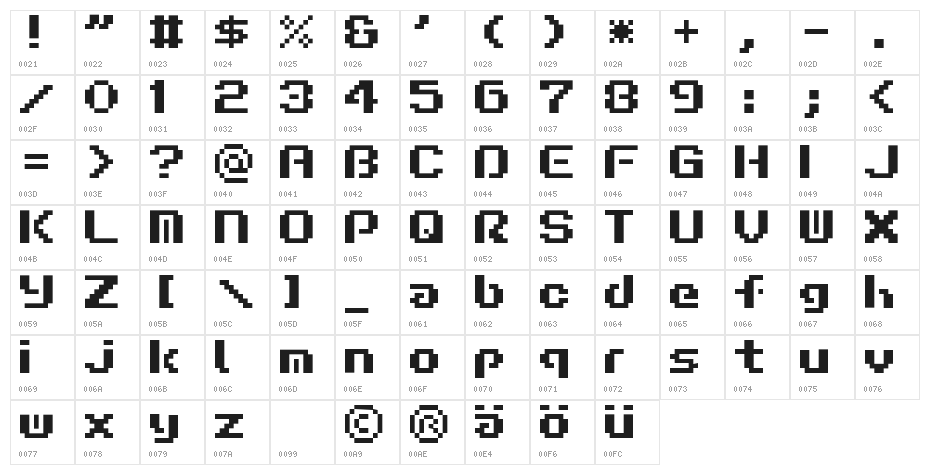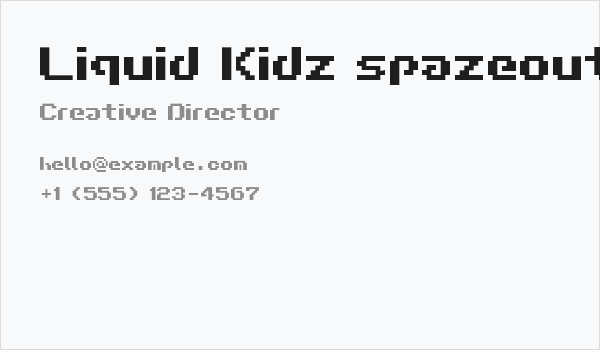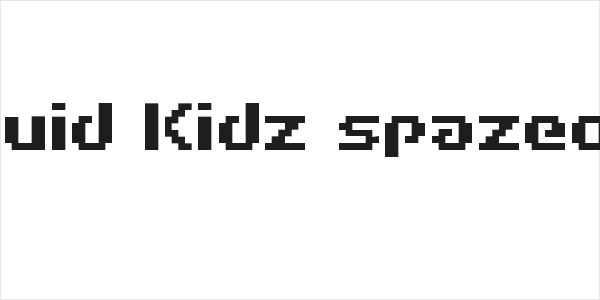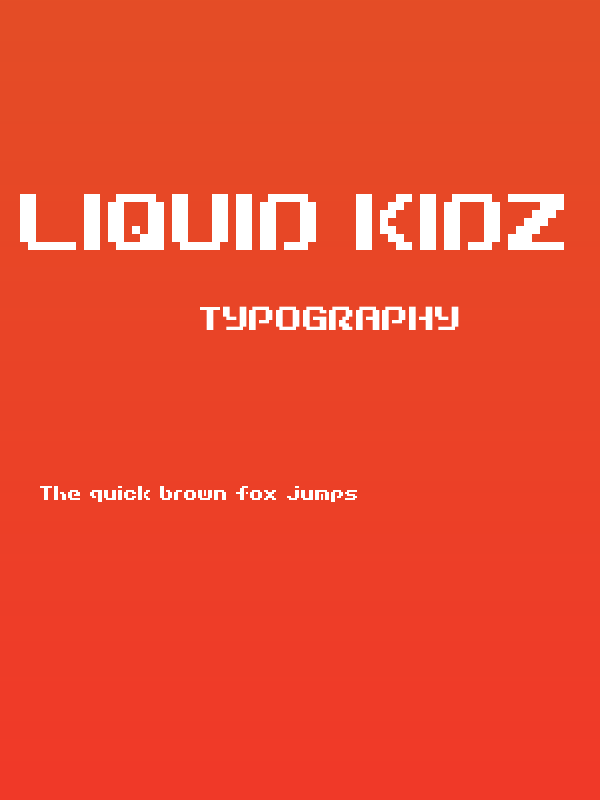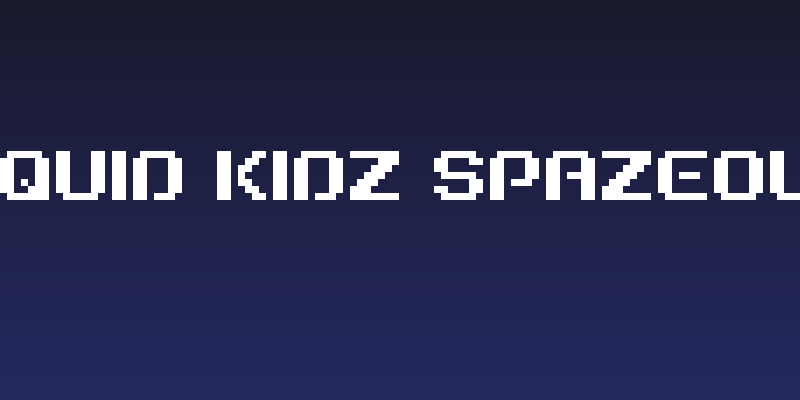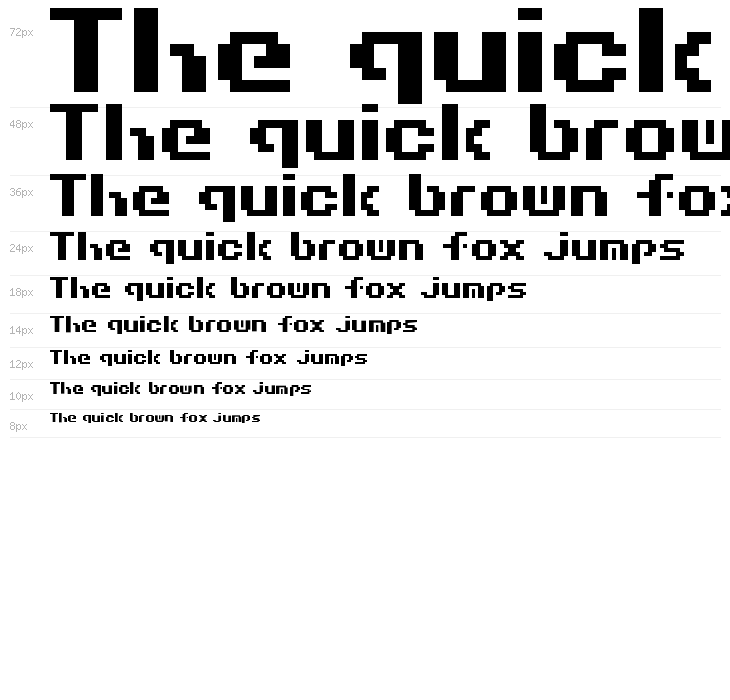
Liquid Kidz spazeout Font
Liquid Kidz spazeout Description
This font features a bold, pixelated design reminiscent of retro video games and digital displays. Each character is constructed with blocky, square edges, giving it a distinctly digital and geometric appearance. The uppercase and lowercase letters maintain a consistent style, with uniform stroke widths and a strong, impactful presence. Numbers and special characters follow the same design principles, ensuring a cohesive look across all glyphs. The font's aesthetic is both nostalgic and modern, making it suitable for projects that require a tech-savvy or playful vibe.
| Overall Style | Retro, Digital |
| Proposed Projects | Ideal for video game graphics, tech-themed posters, digital art, and retro-inspired branding. |